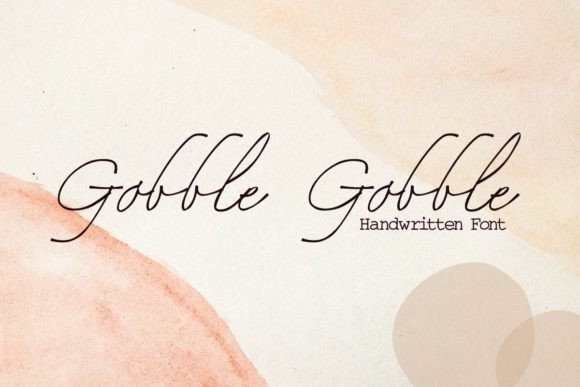
Behold, the Gobble Gobble font, an exquisite script that dances across your screen like a playful calligraphy. Inspired by the Latin culture and language, this font exudes elegance and charm, making it the perfect choice for capturing the essence of Latin quotes.
Each letter in Gobble Gobble is meticulously crafted, reflecting the passion and dedication of its creator, PeamCreations. With its unique feel and stunning impact, this font transforms your designs into captivating works of art. Its delicate strokes add a touch of luxury and sophistication, making your projects shine with an aura of class.
Whether you're creating invitations, posters, social media graphics, or simply want to add a personal touch to your documents, Gobble Gobble's versatility knows no bounds. Its charm will infuse your designs with a sense of authenticity and elegance. Let Gobble Gobble be your muse, igniting creativity and capturing the beauty of the written word.
With Gobble Gobble as your trusted companion, you can unleash your creativity and transform ordinary words into breathtaking masterpieces. Let your imagination soar as you explore the endless possibilities that await you. Its intuitive nature makes it a joy to use, allowing you to seamlessly integrate it into your designs.
Embrace the beauty of Latin quotes with Gobble Gobble's enchanting embrace. Its distinct style will elevate your designs to new heights, leaving a lasting impression on your audience. Dare to be different, dare to be bold, and let Gobble Gobble guide you on your creative journey.